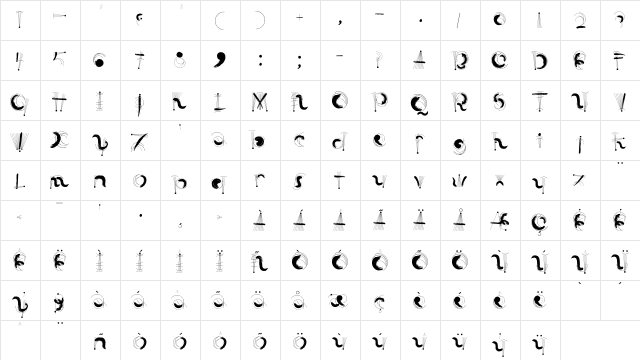
LTFreshEwka Hot Regular
Design Context for LTFreshEwka Hot Typeface
LTFreshEwka Hot is a composed and adaptable typeface that performs quietly and consistently across a wide range of design contexts.